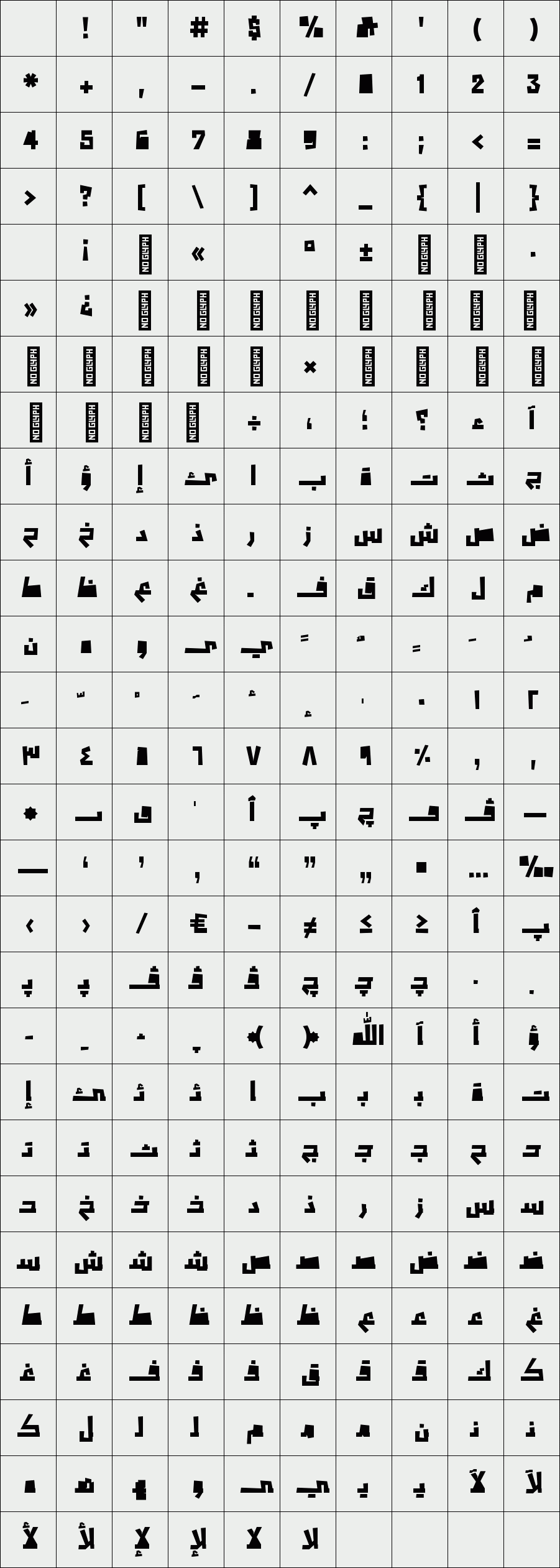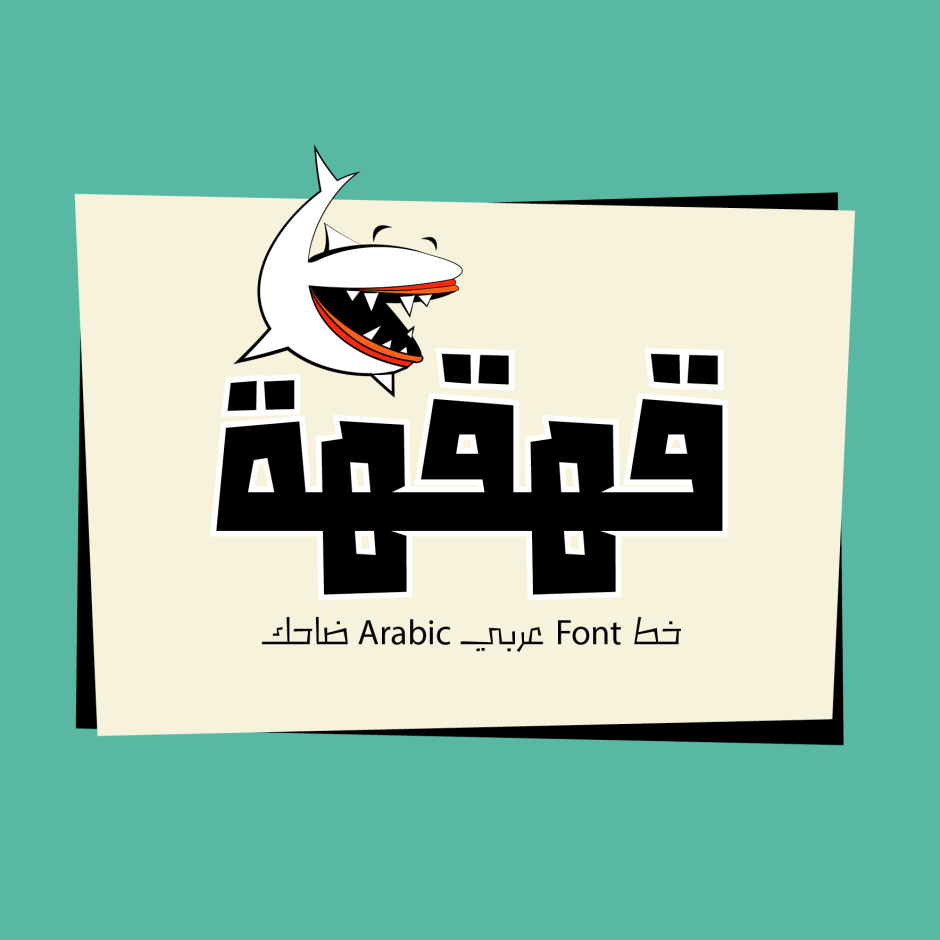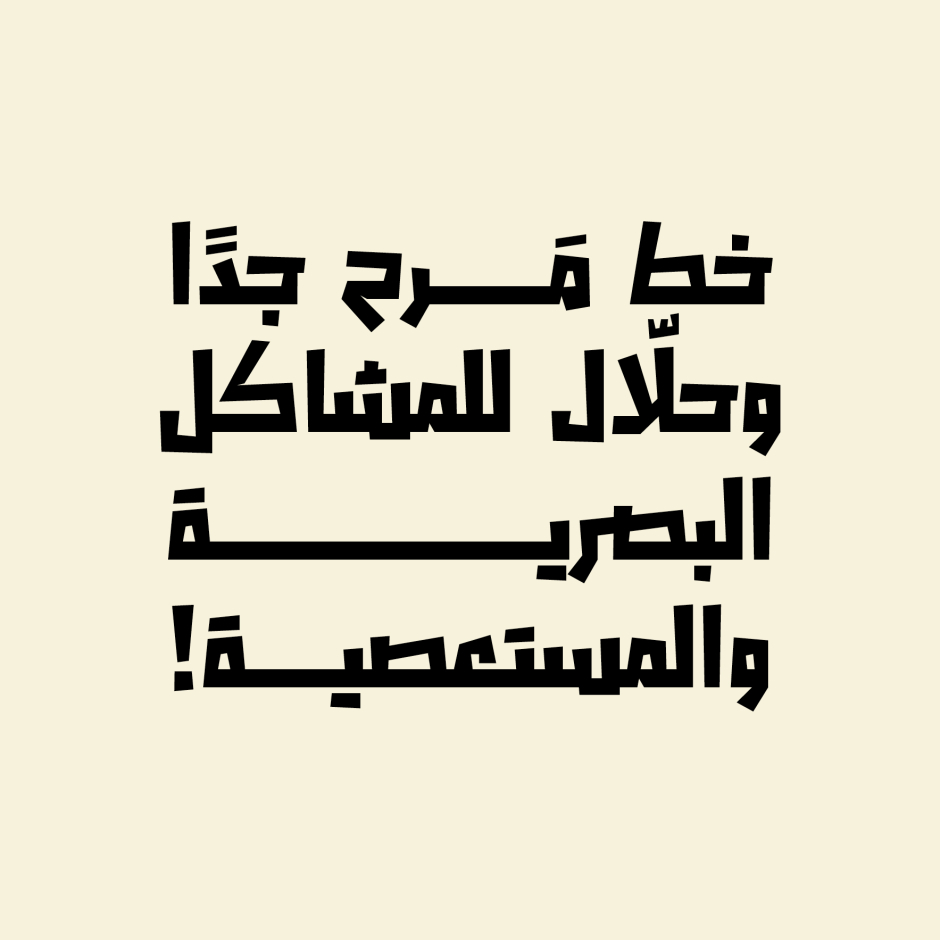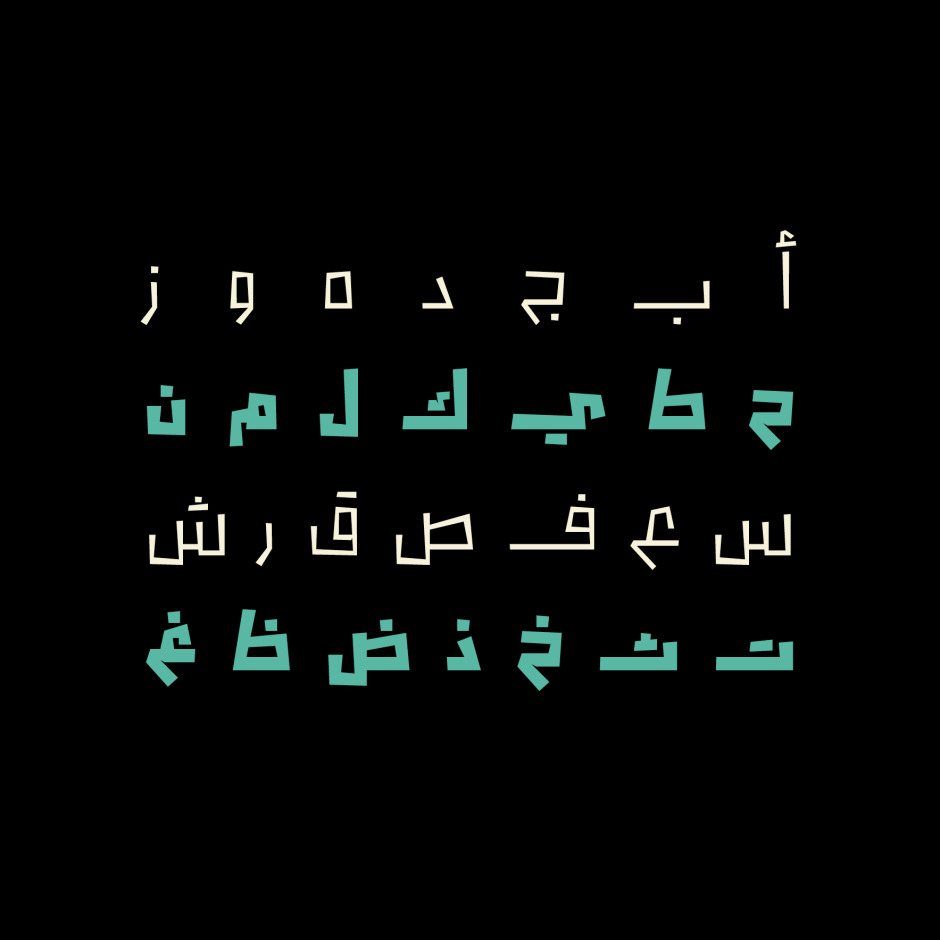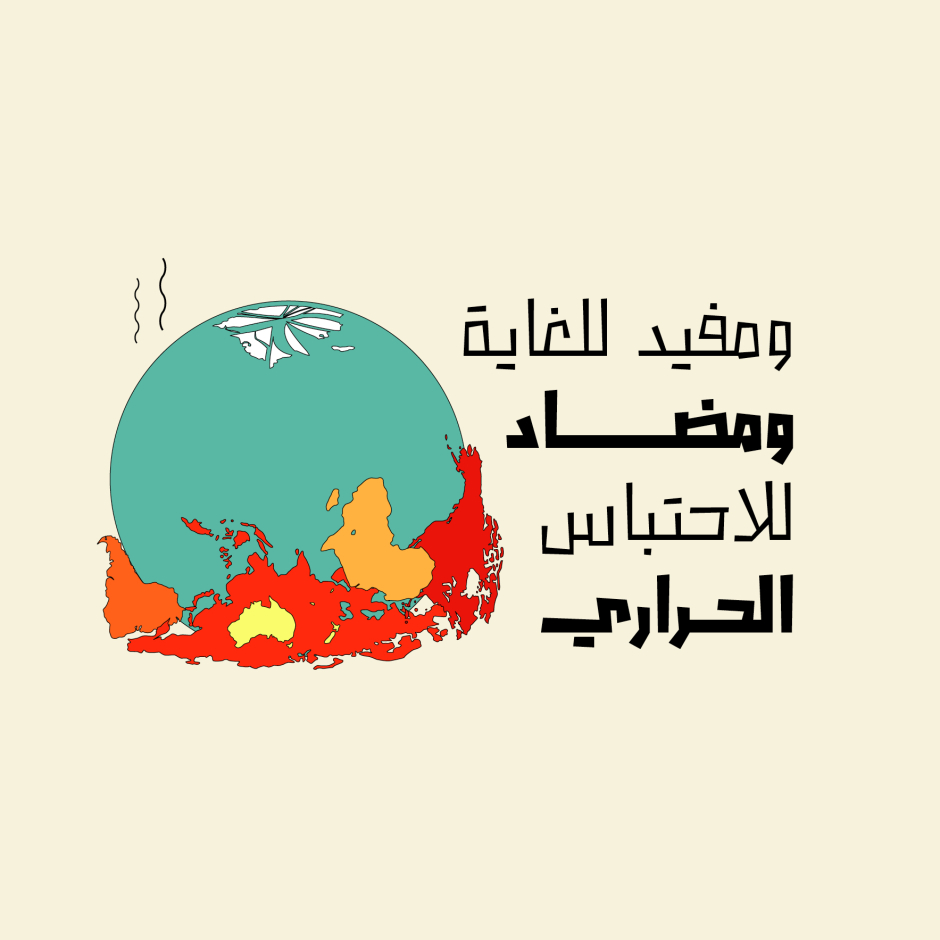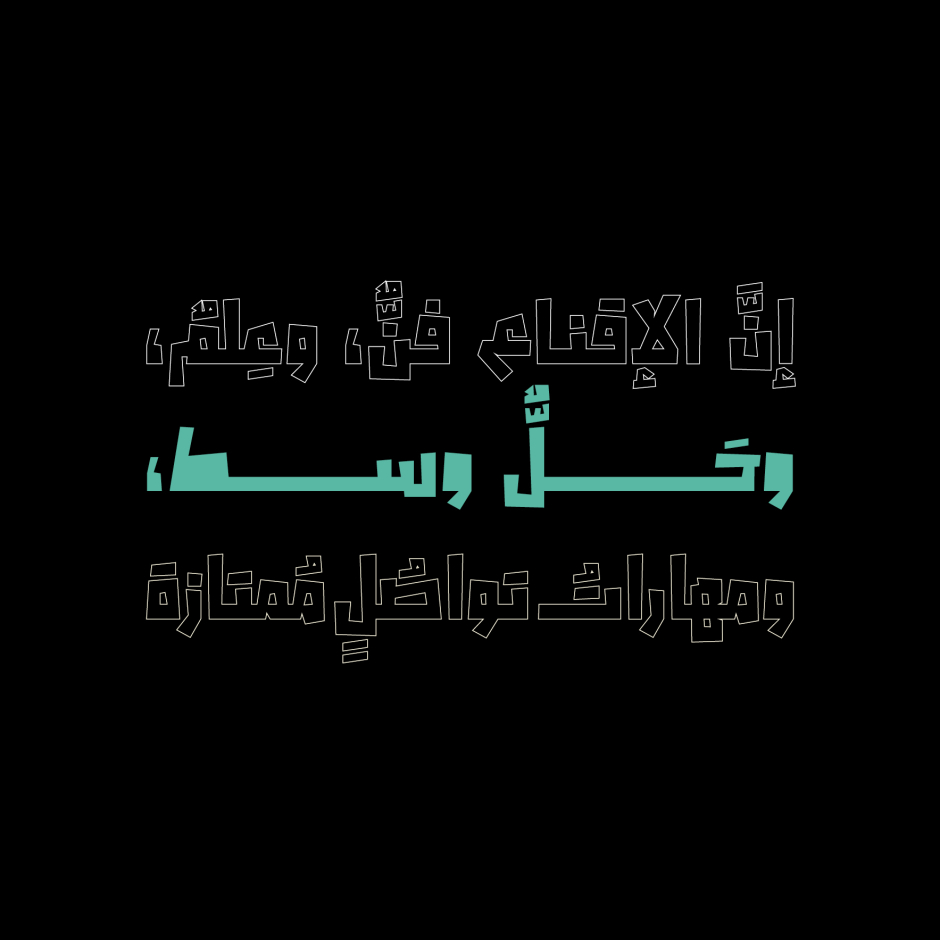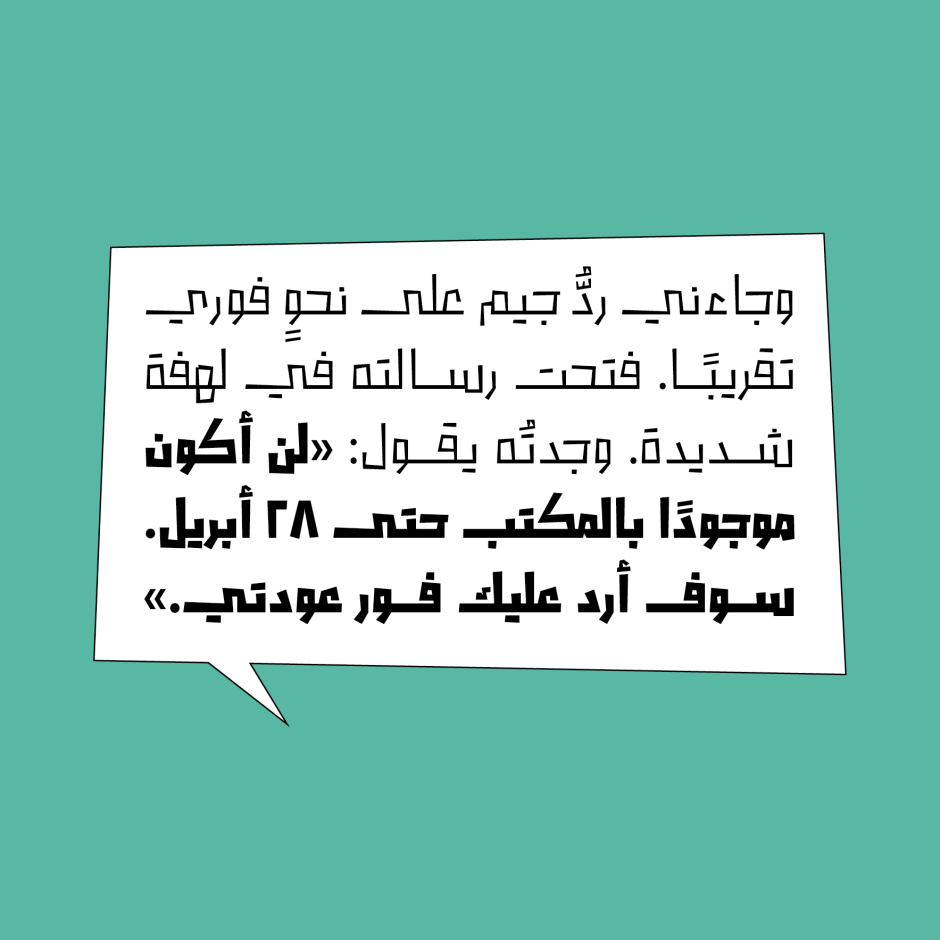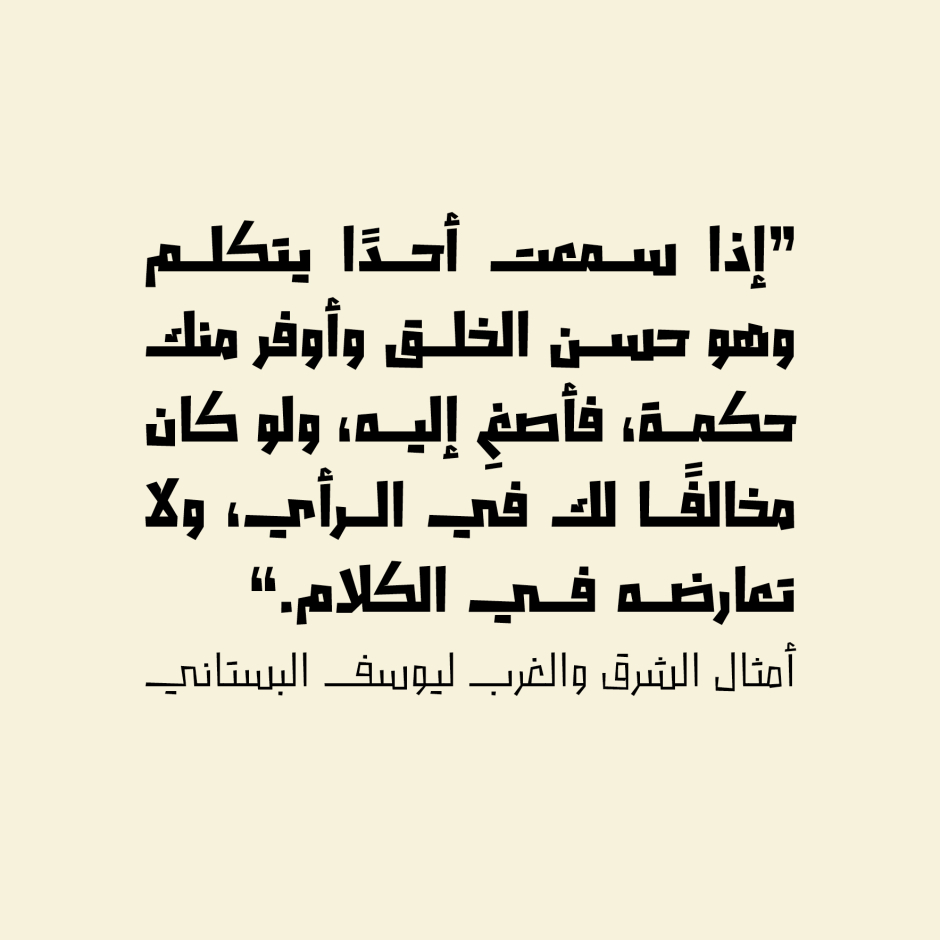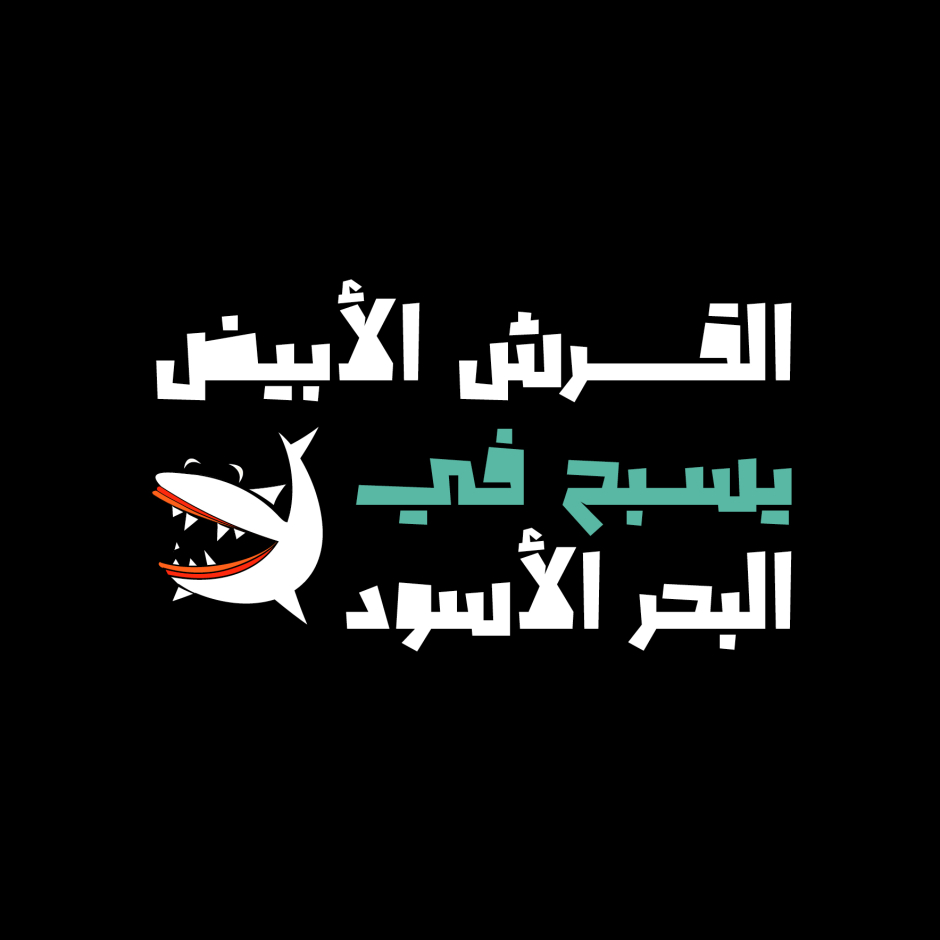
Qahqahah
/ Qahqahah Bold Opaque
Qahqahah (the Arabic word for 'Guffawing') is an Arabic display font that features joyfull letterform style. The font is suitable for modern design projects including web, print and mobile applications. Qahqahah typeface includes two weights (Regular and Bold) and it supports Windows and Mac OS